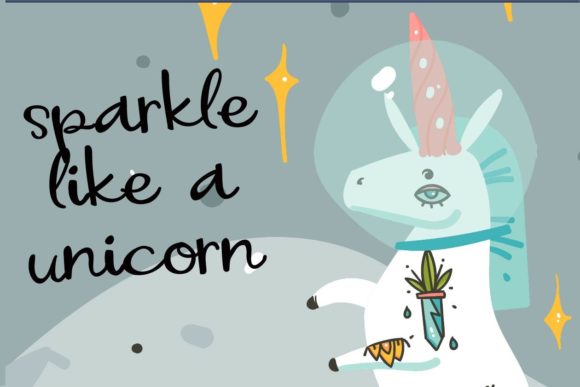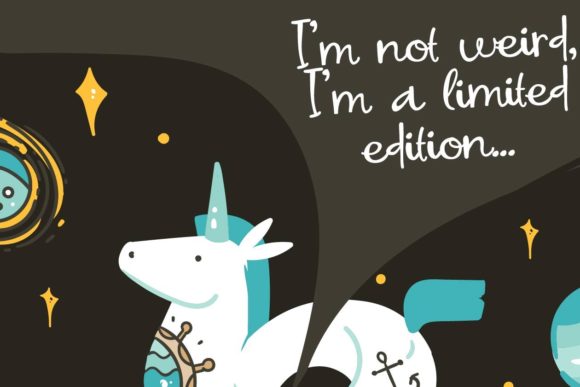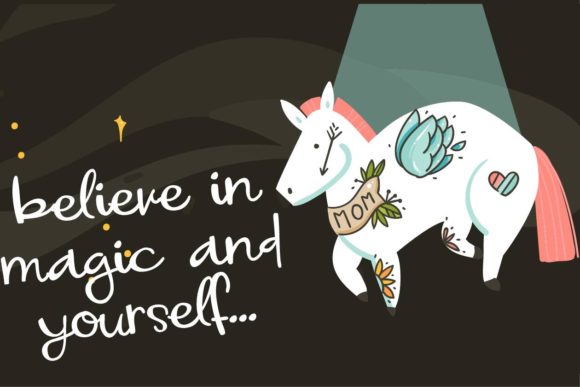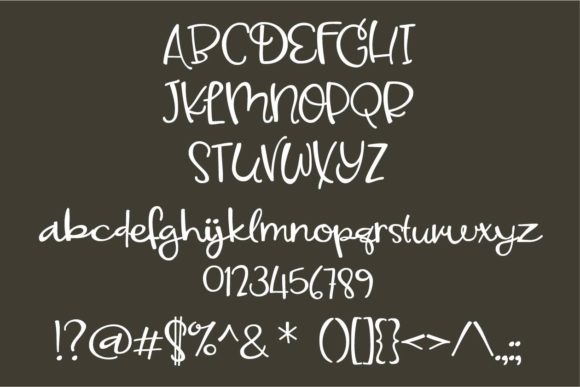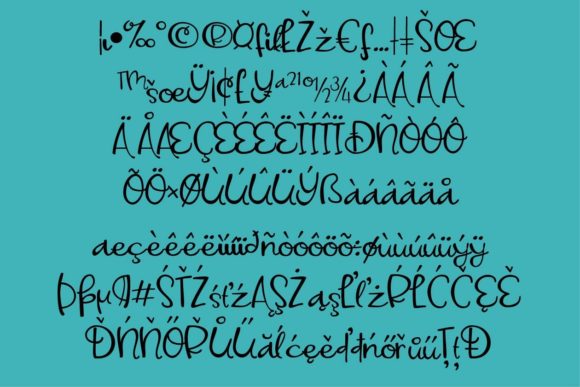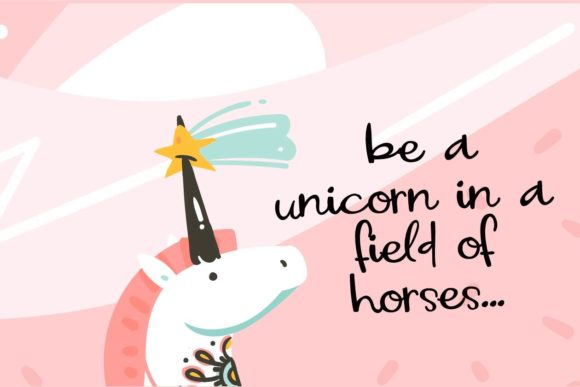
Dreamscape Font: Add a Touch of Romance to Your Designs
Are you looking for a font that can add a romantic feel to your next project? Look no further than the Dreamscape Font. This enchanting handwritten font is perfect for designers and crafters who want to create beautiful and unique designs that capture the essence of romance and whimsy.
What is Dreamscape Font?
Dreamscape is a versatile script font that has a wide spectrum of applications. From greeting cards to headlines, this font is guaranteed to add a touch of elegance and sophistication to your designs. Its flowing curves and delicate lines make it perfect for creating romantic and dreamy designs that will leave a lasting impression on your audience.
Features of Dreamscape Font
- Handwritten script font: Dreamscape Font has a beautiful, handwritten script that gives it a personal and intimate feel.
- Versatile: This font can be used for a wide range of applications, from greeting cards to headlines, and even social media graphics.
- Romantic feel: The Dreamscape Font is designed to add a romantic feel to your designs, making it perfect for Valentine’s Day, wedding, and anniversary-themed projects.
- Elegant and sophisticated: The font’s flowing curves and delicate lines give it an elegant and sophisticated look that’s perfect for high-end designs.
Uses of Dreamscape Font
The Dreamscape Font is perfect for a wide range of design projects, including:
- Greeting cards: Create beautiful and unique greeting cards for special occasions like Valentine’s Day, weddings, and anniversaries.
- Headlines: Use the Dreamscape Font to create eye-catching headlines for your blog posts, articles, and social media graphics.
- Logos: Create a beautiful and memorable logo for your brand using the Dreamscape Font.
- Social media graphics: Use the Dreamscape Font to create stunning social media graphics that will help you stand out from the crowd.
- Wedding and event invitations: Create beautiful and elegant wedding and event invitations using the Dreamscape Font.
Tips for Using Dreamscape Font
Here are some tips for using the Dreamscape Font effectively in your designs:
- Pair it with a sans-serif font: Pair the Dreamscape Font with a sans-serif font to create a beautiful contrast and add visual interest to your design.
- Use it for headlines and titles: Use the Dreamscape Font for headlines and titles to create a bold and eye-catching statement.
- Add a personal touch: Use the Dreamscape Font to add a personal touch to your designs, such as in a handwritten note or a quote.
- Experiment with colors: Experiment with different colors to find the perfect combination that complements the Dreamscape Font.